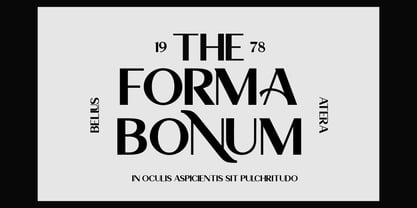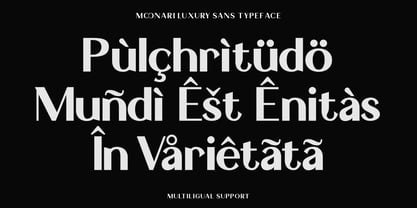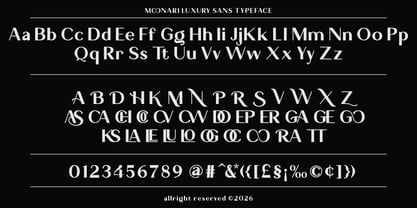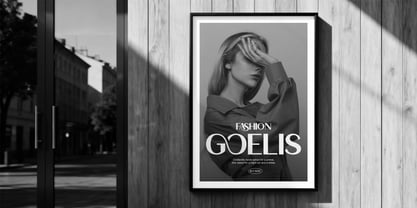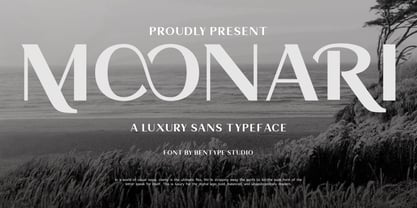
Monari
by Bentype
The Monari Font Family was designed by Muhammad Farkhan and published by Bentype. Monari contains 1 styles. More about this family
Moonari - Luxury Sans Typeface doesn’t always need flourishes; sometimes, it’s found in the perfect balance of a curve and a straight line. This luxury sans serif embodies modern elegance through intentional spacing and refined proportions. It’s quiet confidence in digital form.
Moonari can be used for a variety of projects such as branding, photography, invitations, wedding designs, product design and other romantic projects.